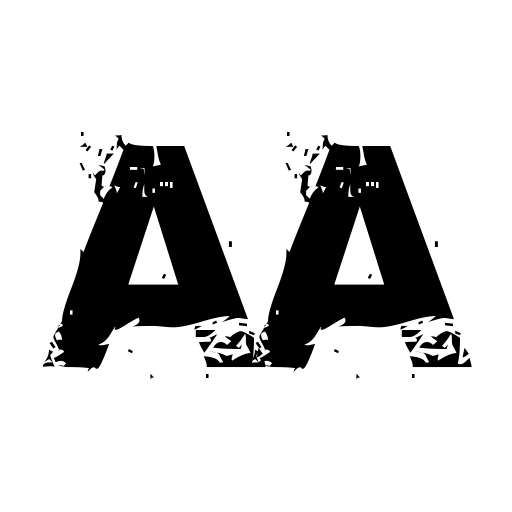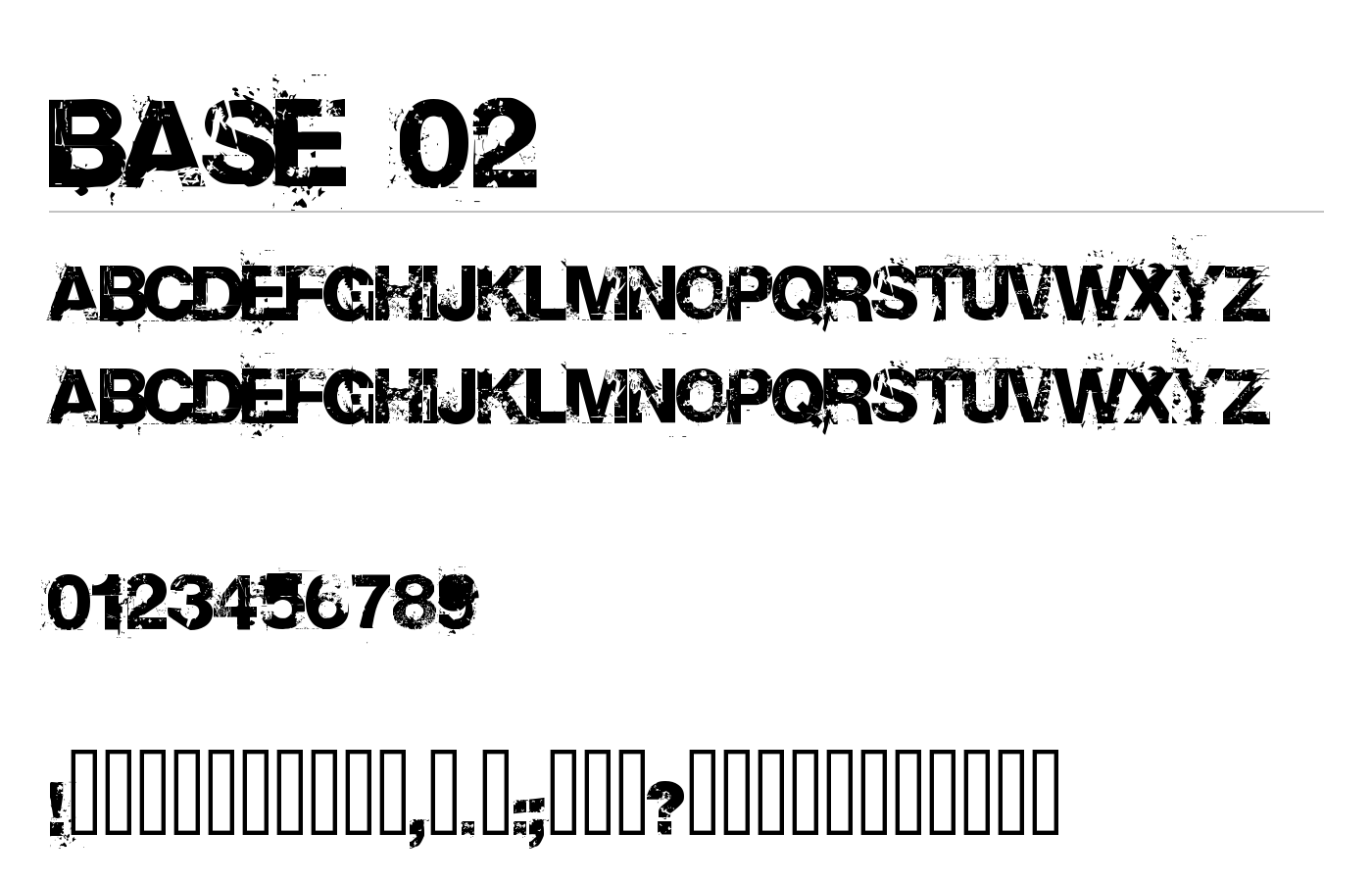
Base 02 is a bold, distressed sans serif font with a rugged and worn texture that gives it an edgy, urban feel. Its strong, heavy strokes and all-caps design make it perfect for impactful headlines, posters, and branding that seek a gritty, rebellious vibe. This font works well where a bold statement and a sense of raw energy are needed, such as in streetwear logos, music promotions, and edgy editorial designs.
Base 02 Font